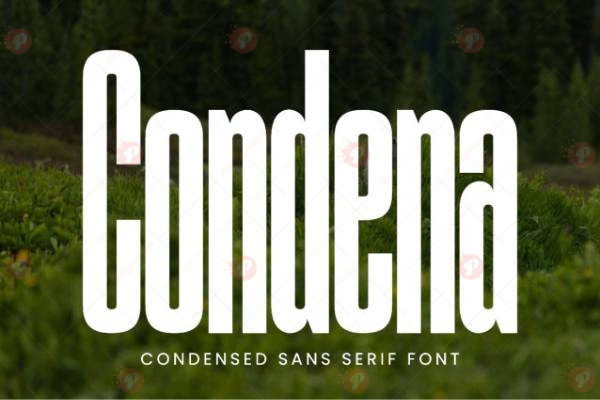
The Condena Sans Serif Font Free is a modern condensed typeface designed to deliver a clean, bold, and professional look. With its sleek geometric style and narrow letterforms, this font is perfect for branding, editorial design, posters, advertising, product packaging, and digital content.
Whether you’re creating magazine headlines, minimalist logos, or modern layouts, the Condena Sans Serif Font Free ensures maximum readability while keeping a stylish and contemporary feel.
Typeface: Sans Serif / Condensed
Style: Clean / Bold / Modern / Professional